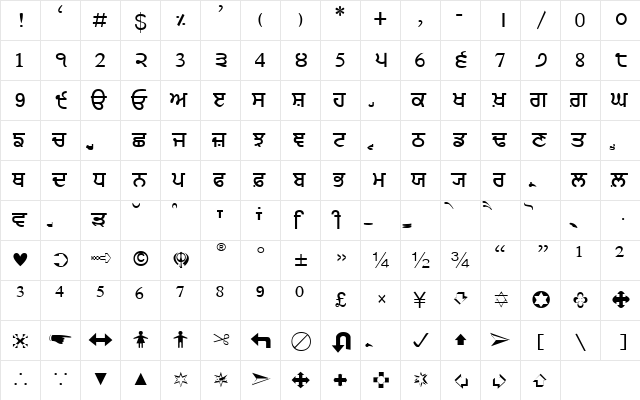
JanmejaSort1 Normal
Design Context for JanmejaSort1 Typeface
JanmejaSort1 offers clean, dependable letterforms without strong stylistic allegiance, making it a practical choice for designers who need flexibility.